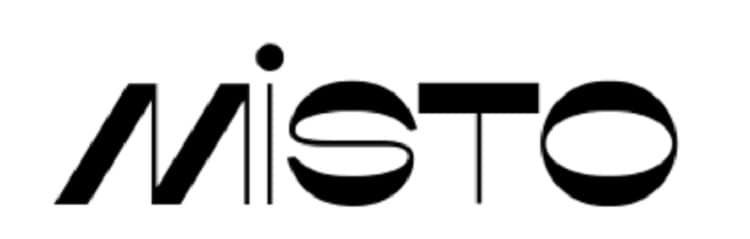
Adding in unique fonts gives your work personality it otherwise wouldn’t have. Typography can bring a design to life, evoking emotion and showing an attitude. Some fonts go better together than others, and create a sort of smooth flow to the work and keeps the reader engaged and moving through a website page or advertisement in a glossy magazine.
It’s impossible to give a set number for how many fonts there are. There are hundreds of thousands of variations based on style and size, and every day font designers make new renditions of old favorites, adding to the selection. Some of these fonts are free and some charge a small fee for commercial use.
Gone are the days when designers had to use a printing press to get the look they wanted. Almost any font today has some customizable options. You can find free fonts in almost any style, from serif to sans serif to decorative. Because there are so many choices, we’ve looked at what we think are the top free fonts for designers and narrowed the choices. If you need something new for a project, try one of these selections.
There are many fonts available for personal use, but they charge a small fee for commercial purposes. We’ve thrown out any font not 100% free for all uses and chosen only those available without a charge for both businesses and individuals. We’ve also tried to vary the font types, so you have a nice selection and offer some suggestions for pairings where it makes sense.
Here are our top 7 free fonts for designers:
1. Runy Tunes Revisited
Runy Tunes Revisited is a beautiful script font perfect for use as a logo, website header or to draw attention to a word or two. The bowls of the letters are partially open on the capital “R” and the tails swirl out into enhancements giving the script a handwritten appeal. Created by Nick Curtis, the font pairs well with either a serif or sans serif for body text.
2. Commissioner
All Google fonts are released under open source licenses and are free for both commercial and personal use. If you’re designing for internet use, a Google font pairs well with Chrome and other browsers. It’s an excellent choice for a seamless experience.
Commissioner is a gorgeous sans serif font that works well for body text or headings. Note the straight, almost perfect symmetry of the letters. However, the dots over letters like “i” have an almost hand drawn look.
Kostas Bartsokas designed Commissioner. as a “low-contrast humanist sans-serif.” The stems are straight but the terminals vary. The font changes appearance if you go with italics versus thin. It pairs with Roboto and Montserrat.
3. Cherry AI
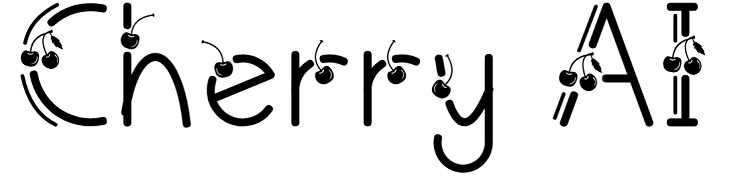
Cherry AI offers a beautiful decorative style best suited for restaurants or food stores. The cherries apparel throughout the letters, creating interest and engaging the user. Because there are graphics built into the letters, Cherry AI works best as a header or for logos. It is a little too much for body text or subheadings.
4. Bodina Moda
Also free for commercial or personal use, Bodina Moda is a serif font with thin stems on one outside edge and straight serifs. The design has a very classical feel for serious businesses, such as financial institutions or medical professionals. The look is reminiscent of a magazine cover for The New Yorker or a newspaper headline.
Indestructible Type designed the font with high contrast between the bold strokes and thin, faint ones. It translates well in different sizes, making it scalable to mobile devices. Pair Bodina with common serif choices such as Garamond or Georgia.
5. Lavigne
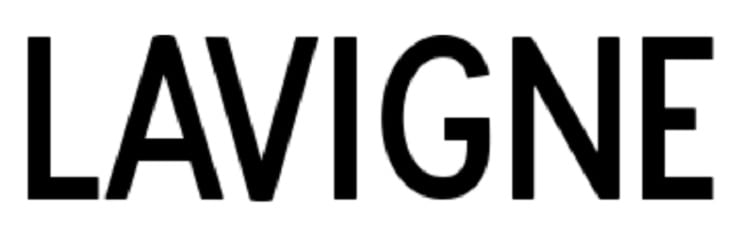
If you’re looking for a simple sans serif font, Lavigne is an excellent choice. The stems and spines of the letters are uniform, giving the font a formal look. The lack of terminals adds to the serious tone of the design. Lavigne works equally well for headers and paragraphs.
Emylia Marratta is the font’s designer, and she made it free for commercial use. Because the font is simple, you can pair it with nearly anything. If you want to keep the look formal, go with another sans serif. To add a bit of contrast, choose a serif pairing. If you want to bring in some lighthearted fun, go with a script or decorative font for your headers and pair with Lavigne. The attention will go to the headlines.
6. Dancing Script
Finding Free Fonts for Designers